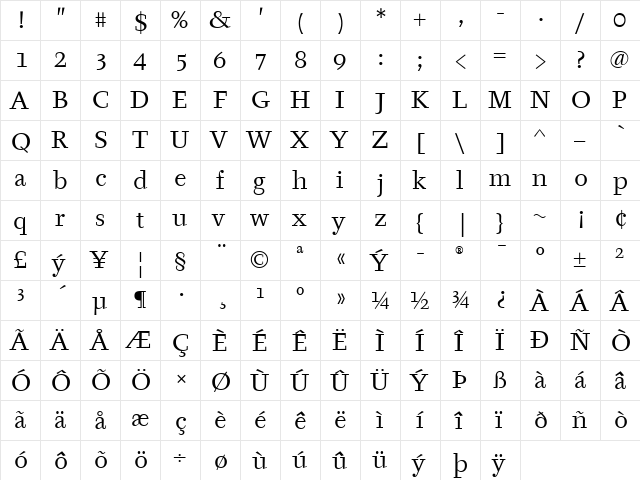
Tyfa ITC Book
| Foundry | International Typeface Corporation |
Design Context for Tyfa ITC Typeface
Tyfa ITC is a composed and adaptable typeface that performs quietly and consistently across a wide range of design contexts.